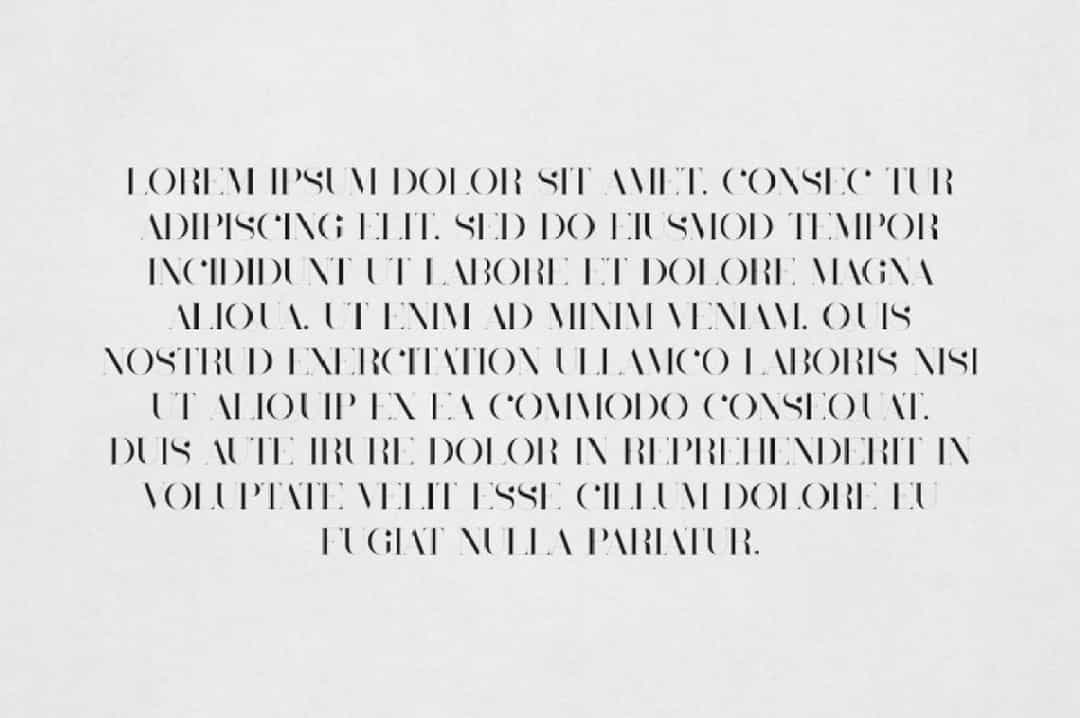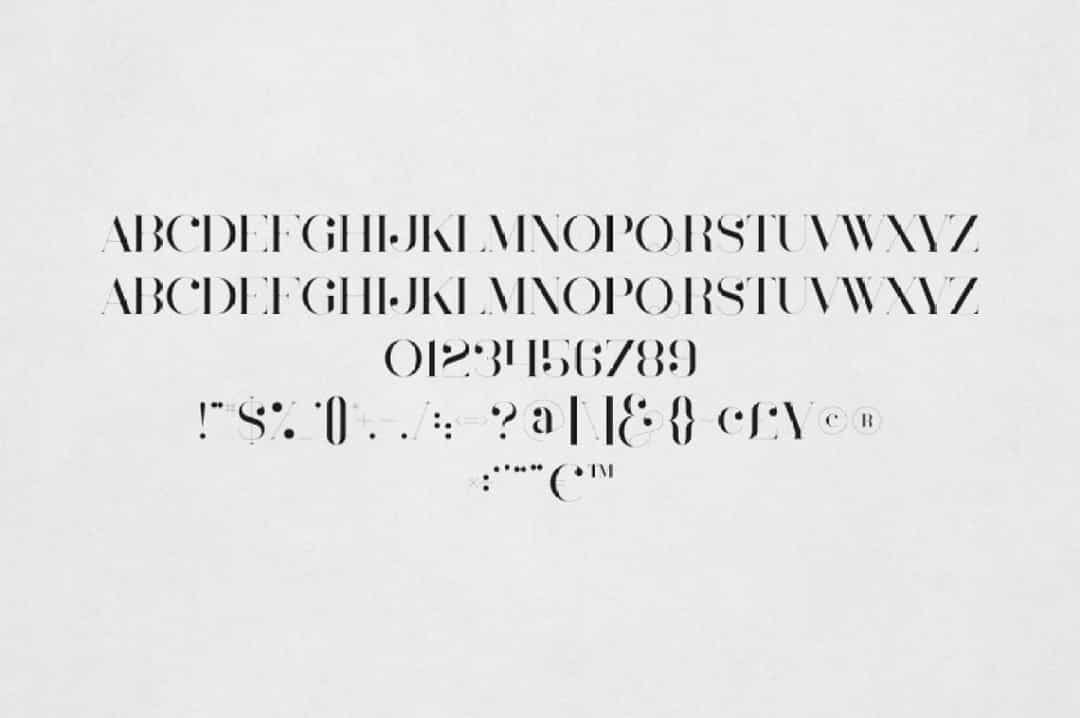
Danica is an elegant and flexible serif typeface designed to give your typography its own signature look! Perfect for headlines, logos, branding or simple text usage; Danica will add life and flair to any headline, logo or text!